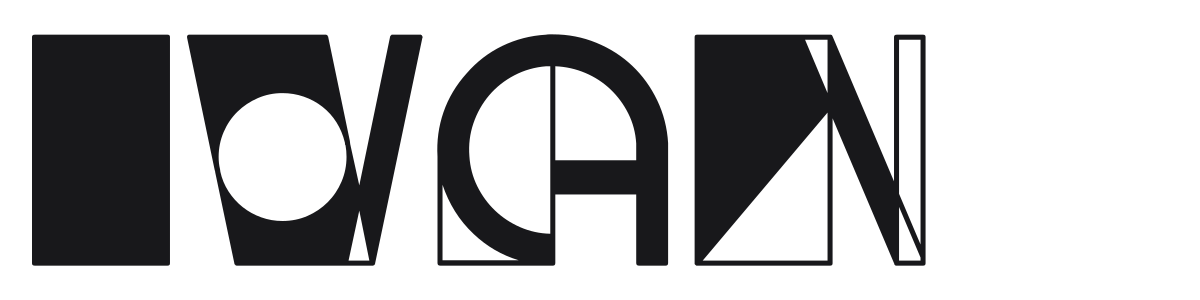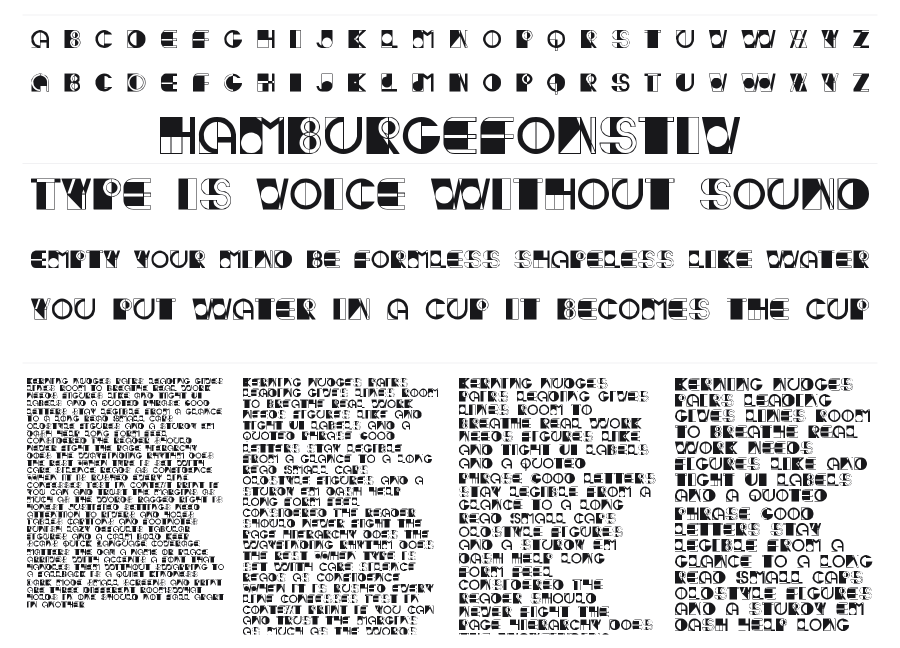
Ivan
Ivan is a geometric display font built on a strict grid of squares and circles, where each character is assembled from interlocking modular shapes. The contrast between solid black forms and thin circular cutouts gives it a graphic, almost architectural quality rooted in Bauhaus and Art Deco tradition. It works best at large sizes where the geometric interplay within each letter can be fully appreciated.